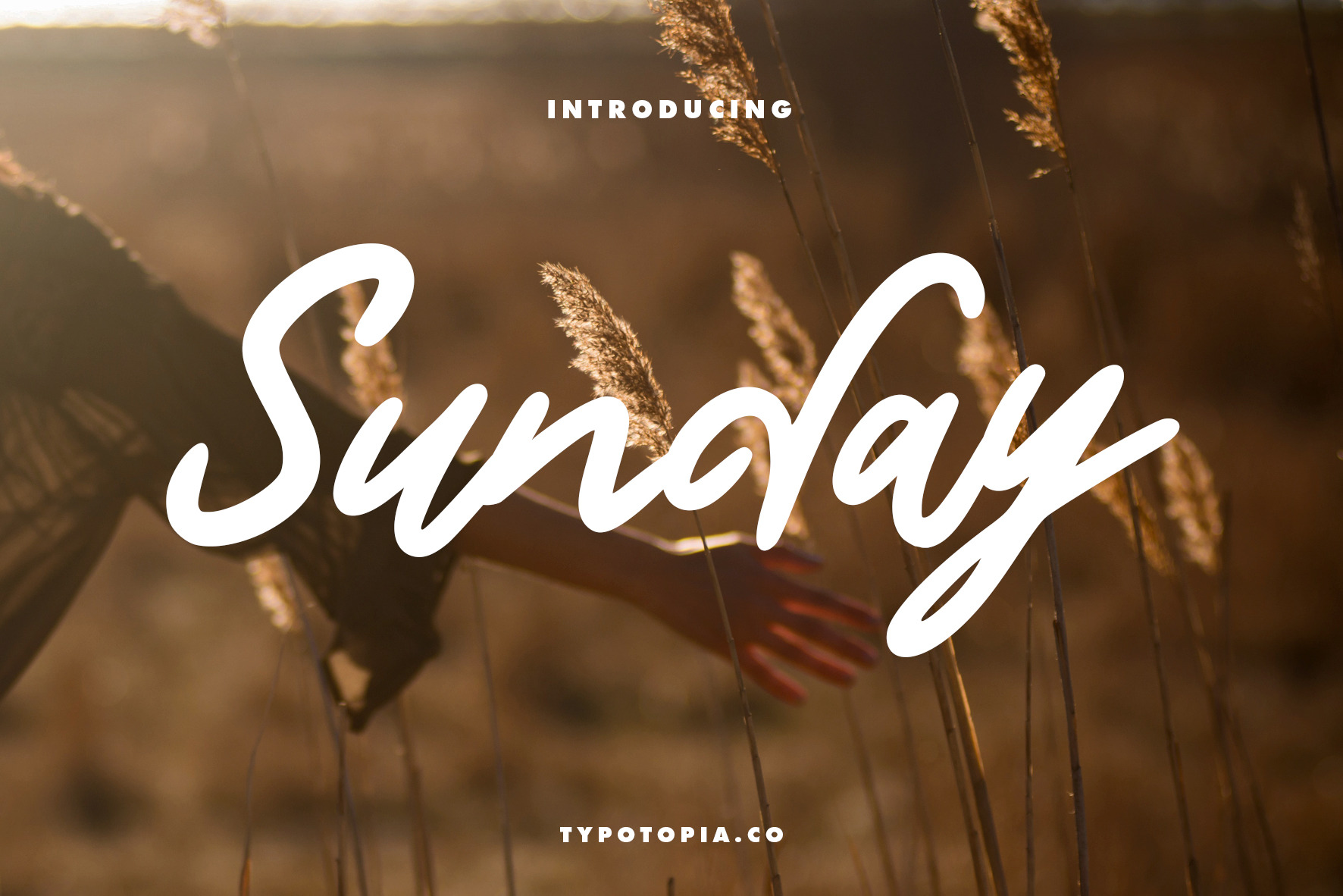
Sunday Handwritten Script Font
Introducing, Sunday a Fancy & Unique Script Font!!
Sunday is a Fancy & Unique Script Font with Casual Style for your Design that is absolutely great for your next creative project such as logos, printed quotes, invitations, cards, product packaging, headers, Logotype, Letterhead, Poster, Apparel Design, Label, and etc.
This Versatile Font includes also supports Multilingual Characters. Making this Font a Swiss Army knife in your Font Library. It's extremely fun to use as each word can be transformed to your liking.